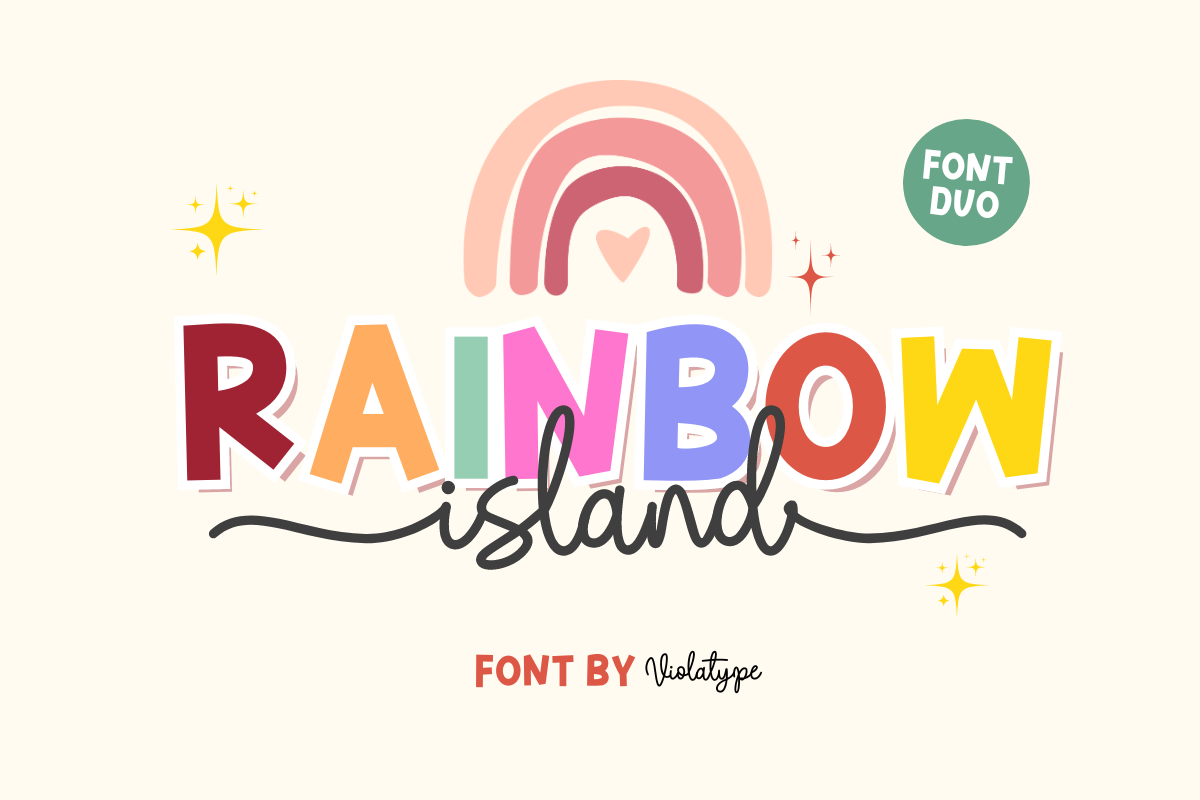
Rainbow Island - Font Duo Free Download
Please note, to use this font for commercial purposes, you must purchase the full version. Rainbow Island is a vibrant and versatile font duo that pairs a playful script with a clean, modern sans-serif. This font duo is perfect for a variety of design projects such as logos, branding, invitations, and marketing materials. Whether you're designing for a fun event, a trendy brand, or a creative campaign, Rainbow Island brings energy and balance to your designs. Test it out and enjoy free download access for personal use. Discover the charm and versatility of Rainbow Island - Font Duo Free Download before purchasing the commercial license. Elevate your designs with the playful and professional style of this dynamic font duo.